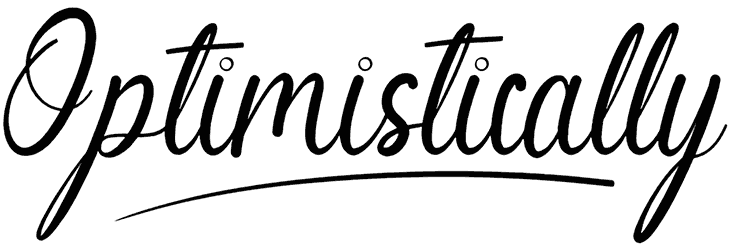
Priscilla Font
We highly recommend all graphic artists visit our library and enjoy a script font such as Priscilla that is perfectly designed for a wide set of artwork such as posters, business cards, logos, brochures, and book covers.
Since this brush font comes with curved and oblique characters, it can add a sense of softness, delicacy, and precision to any graphic project. Aside from all its benefits, this masterpiece provides two distinctive styles for all designers.